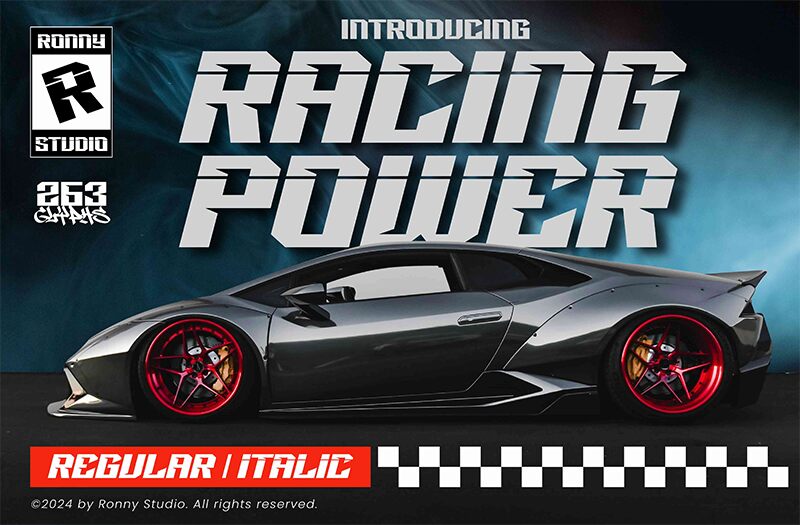
Racing Power DEMO Italic
If it’s power and speed that you want to project, this Racing Power Italic font provided by Ronny Studio is for you. Featuring a bold futuristic style that captures a sense of motion and energy, this display font brings to life the spirit of adventure and high-stakes competition with its sharp and angular lines.
A great example of a font designed for a specific goal, Racing Power Italic offers a perfect combination of masculinity and elegance with its thick strokes and tall characters. If you’re planning on creating a logo, poster, branding project, packaging and label designs, flyer, banner and cover designs for sports cars, motor and boat competitions and all kinds of related events, or even typography art and print designs (posters, t-shirt, cup, and mug designs), this racing power font created with UX designers in mind is just what you need.